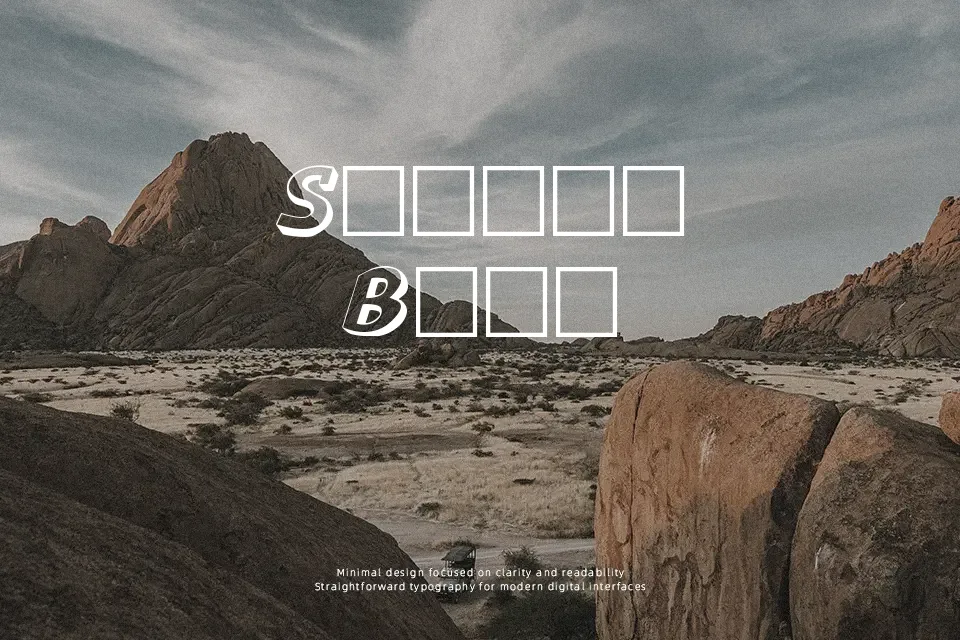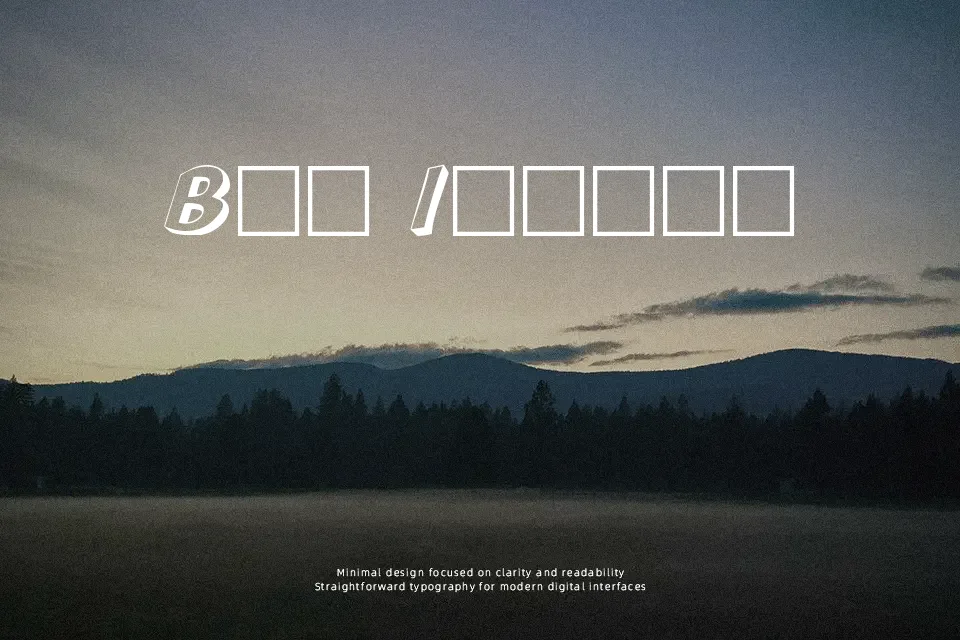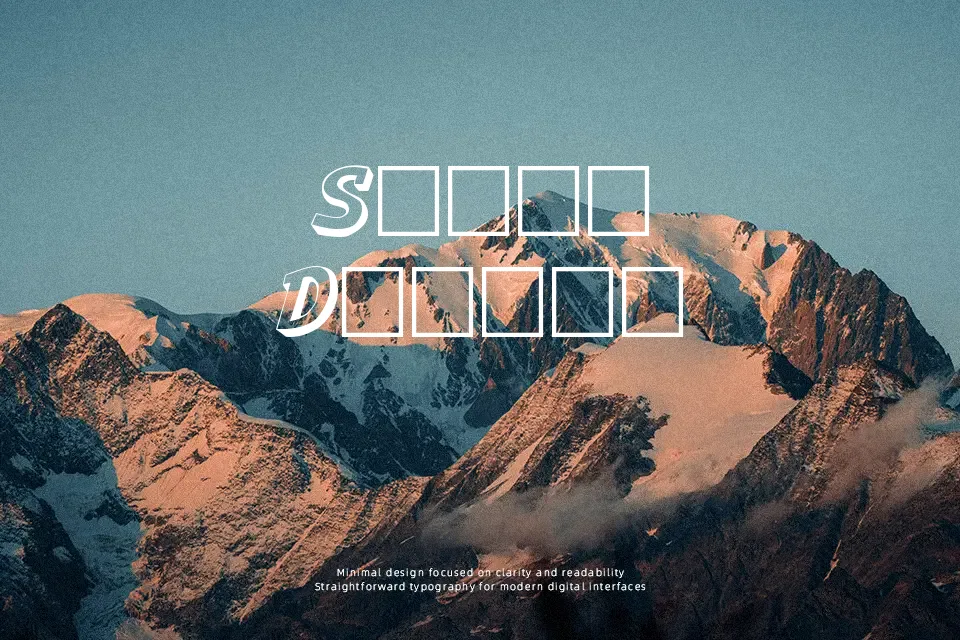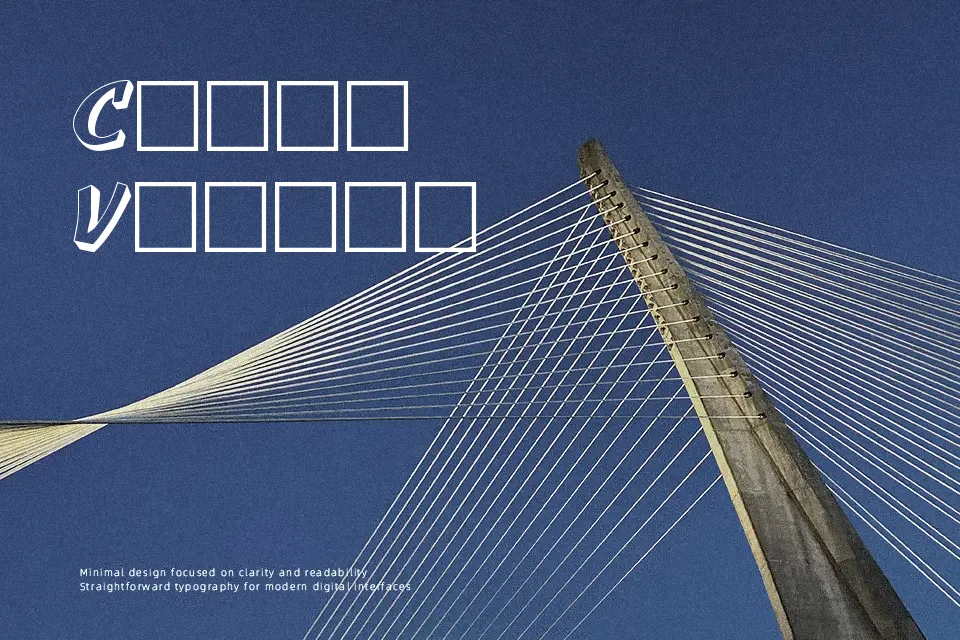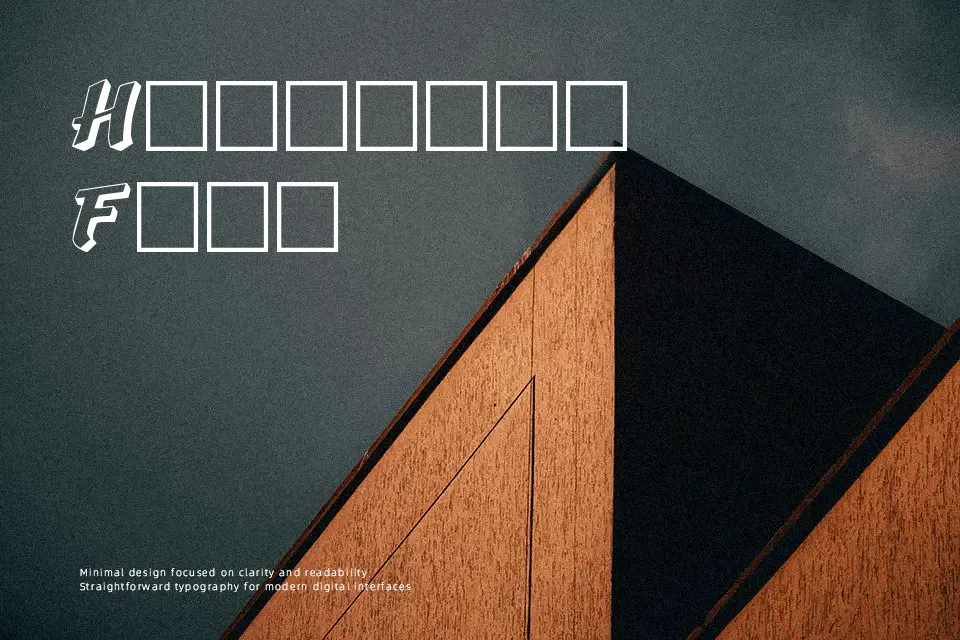
Sprague Font
Designed by Rasmus Andersson
Sprague Font features thick, uniform strokes and dynamic letterforms designed exclusively in uppercase characters with matching numerals. The letterforms exhibit solid geometric foundations paired with subtle angles, creating a lively rhythm across short lines of text. Character spacing remains relatively compact, which enhances visual cohesion at prominent scales while preventing awkward gaps. The consistent stroke weight ensures strong visibility across large physical banners. Because the typeface lacks lowercase characters and fine internal counters, it becomes difficult to parse when set in continuous body paragraphs or compact interface labels. The design functions best in bold headline layouts, video game menus, and children’s event posters.
Best For: comic book covers, video game titles, children’s event banners, arcade signage
Not Ideal For: long body text, mobile interface labels, academic documents, dense editorial layouts